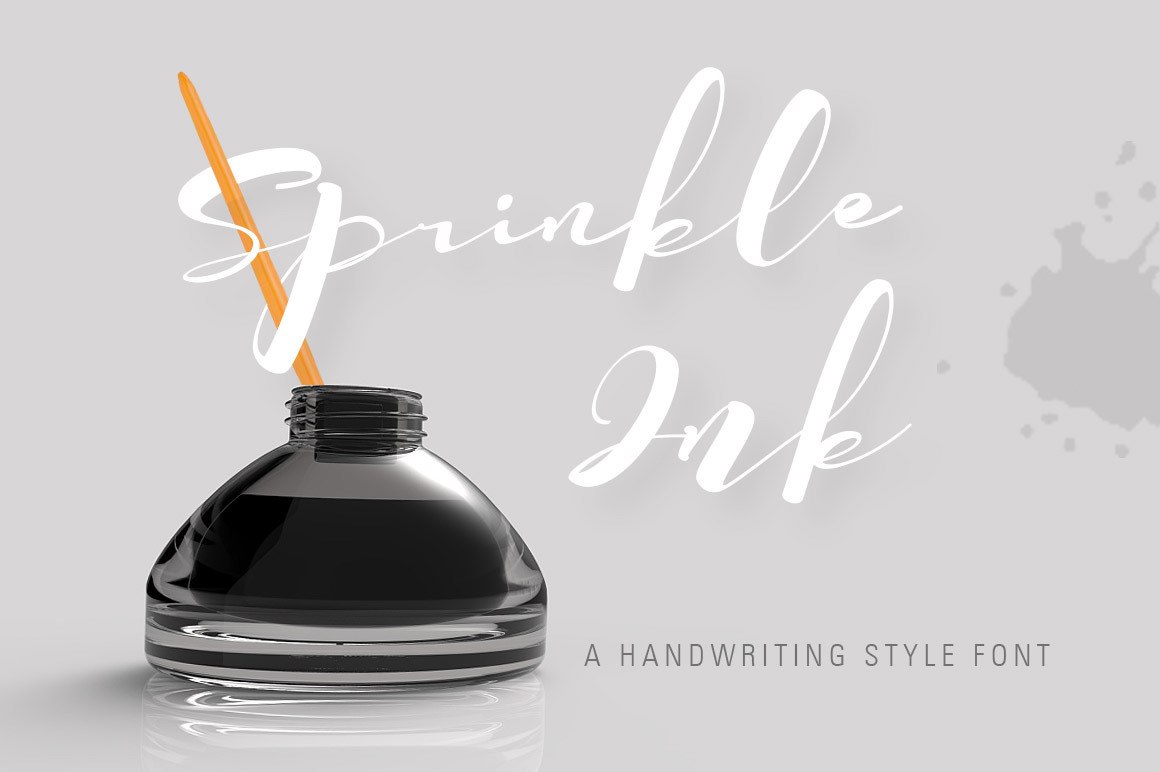
SprinkleInk font
SprinkleInk is a set of handwritten style font, Similar to the brush strokes, rough and delicate combination, smooth strokes, open structure, showing atmosphere and elegance.